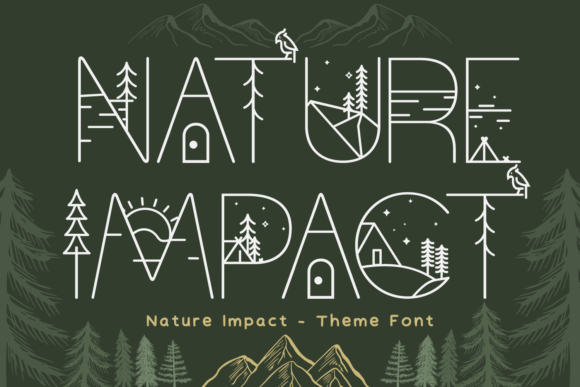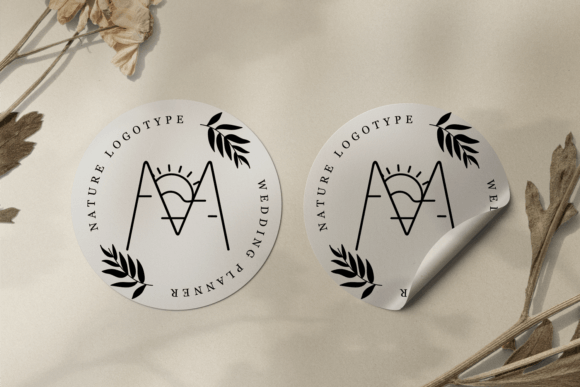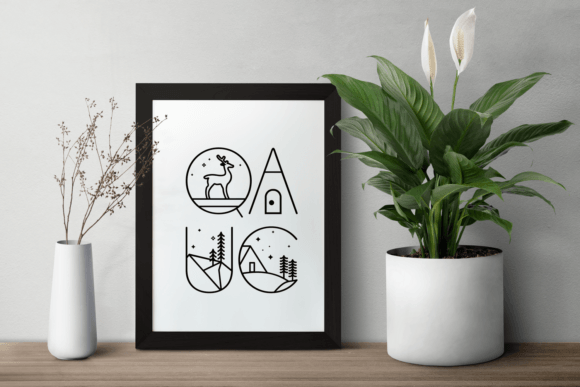
Nature Impact Font
About the Nature Impact Font
Unleash your creativity with Nature Impact Font, a versatile font perfect for a wide range of applications. Nature Impact font is a thin line font in nature style, uppercase is decorated with geometric and natural elements. Initials are ornamented with floral designs, flowers, plants, leaves, and many more.
This font will perfectly fit various label and logo designs. It’s working better with short big words when all the details are visible.
Nature Impact excels in branding applications requiring a delicate yet distinctive touch, particularly for logos, short headlines, and packaging where the intricate details shine. It’s ideal for products emphasizing natural elements, such as organic foods, botanical products, or eco-conscious brands. Avoid using it for body text or long form content; the thin lines and ornamentation would hinder readability.
Its personality is elegant and refined, with a touch of whimsicality. The font’s core strength lies in its ability to convey both sophistication and a connection to nature.
Pairing it with a clean sans-serif like Open Sans for body copy provides a strong contrast, allowing Nature Impact to retain its visual prominence. For a more playful feel, consider pairing it with a rounded geometric sans-serif, while a classic serif font like Garamond offers a sophisticated and timeless balance.